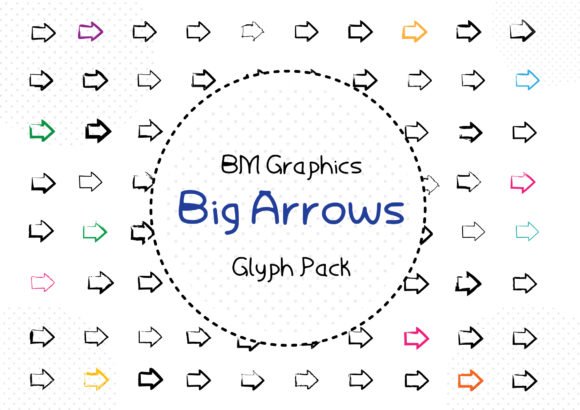
Unlock Your Design Potential with BM Graphics – Big Arrows Font
Have you ever stared at a blank canvas, trying to decide which direction to take your design project? It’s a common creative conundrum that can leave even the most seasoned designers feeling stuck. But what if you had the perfect tool to guide you towards a fresh and exciting new direction? Enter BM Graphics – Big Arrows Font, a stunning dingbats font that’s packed with a multitude of arrow designs.
With BM Graphics – Big Arrows Font, you’ll have the creative freedom to add a touch of modernity and sophistication to any design project. Whether you’re working on a logo, brochure, or website, this versatile font is sure to provide the perfect visual cue to draw your audience’s attention. Its value lies in its ability to convey a sense of direction and movement, making it an invaluable asset for designers looking to make a lasting impression.
BM Graphics – Big Arrows Font Key Features
- Font Style: A bold and playful font with large arrow shapes, ideal for highlighting and pointing.
- Character Set: Includes uppercase and lowercase letters, numbers, and punctuation marks, as well as arrow symbols.
- Unique Characteristics: The font features large, bold arrow shapes that can be used to draw attention and create visual interest.
BM Graphics – Big Arrows Font Review
Overall, I’m quite impressed with the Big Arrows Font from BM Graphics. Here’s a breakdown of what I think works well: ✨
- Unique design**: The font has a bold, playful style that’s perfect for adding a touch of whimsy to your designs.
- Good legibility**: Despite its bold appearance, the font is still easy to read, even at smaller sizes.
- Limited font styles**: The font only comes in a single style, which may not be suitable for all design projects.
Overall, I’d give the Big Arrows Font 4 out of 5 stars. While it has some limitations, its unique design and high-quality vectors make it a great choice for designers looking to add some personality to their projects.
The BM Graphics – Big Arrows Font is ideal for:
- Infographics and visualizations.
- Presentations and reports.
- Signs and labels.
- Marketing materials and advertisements.